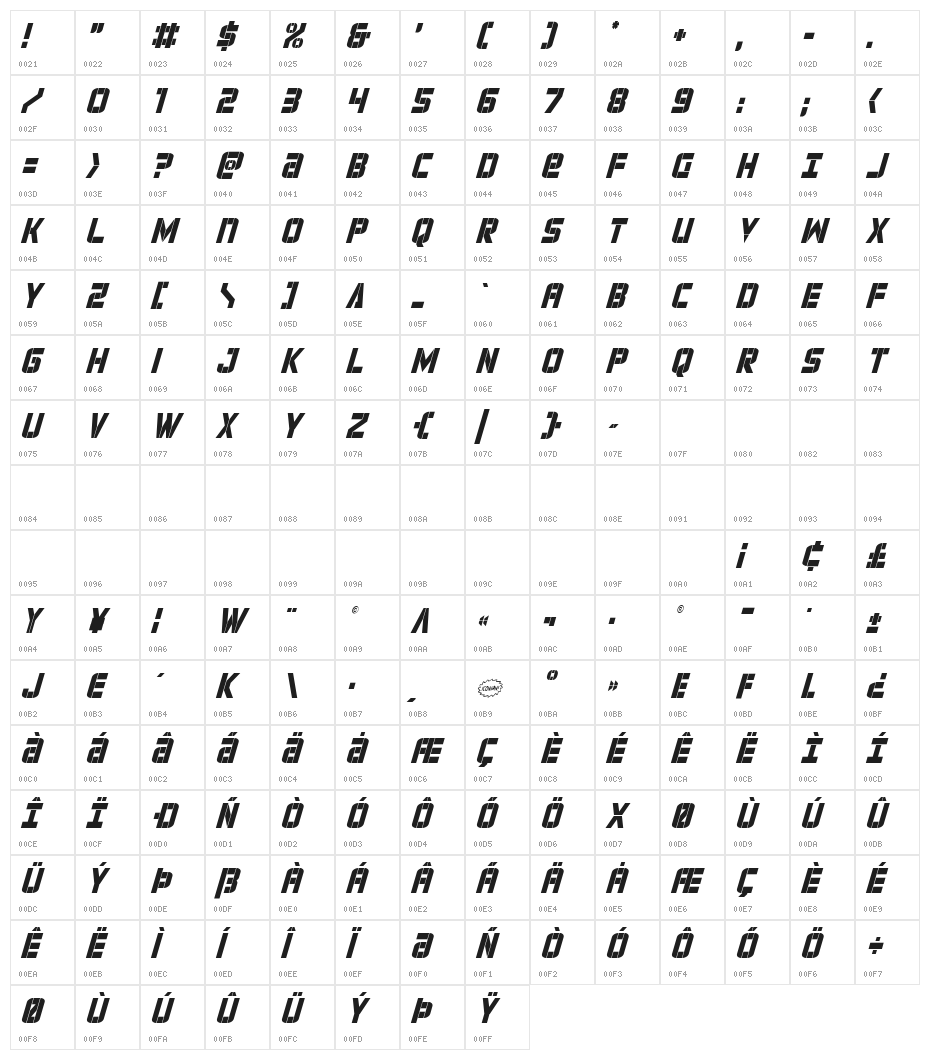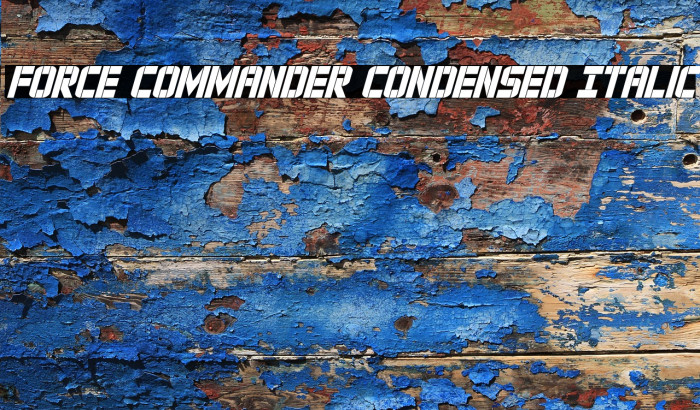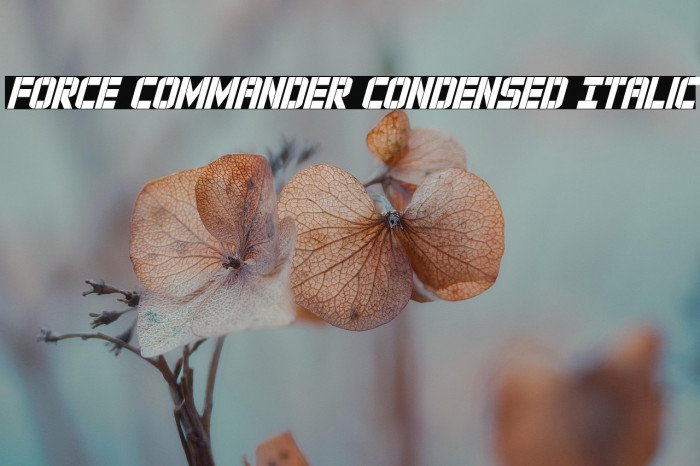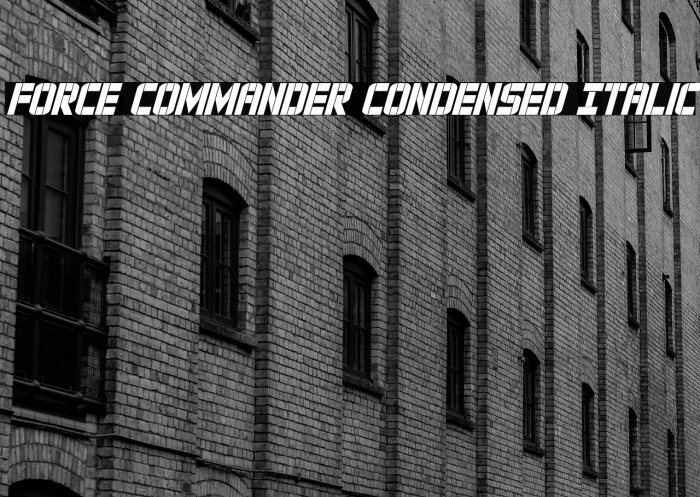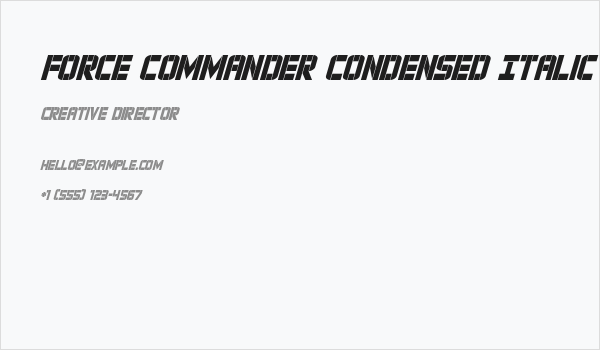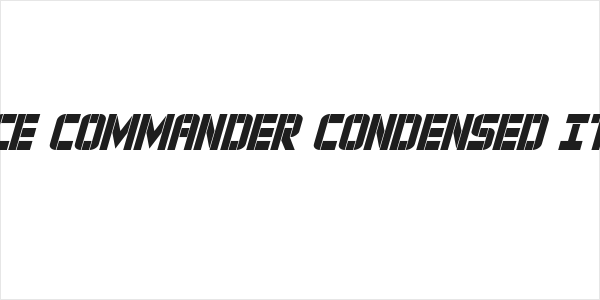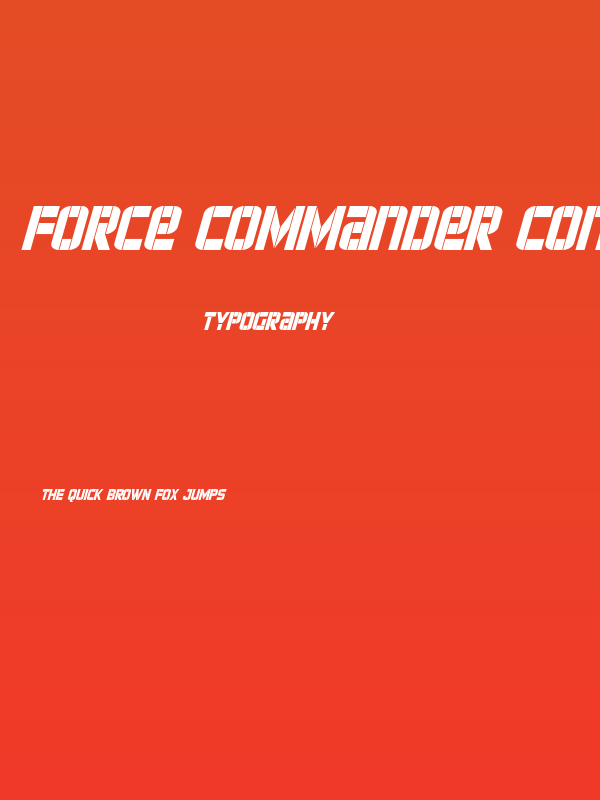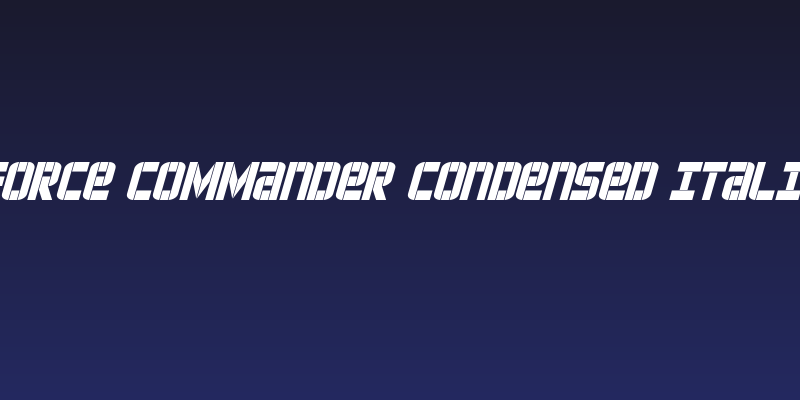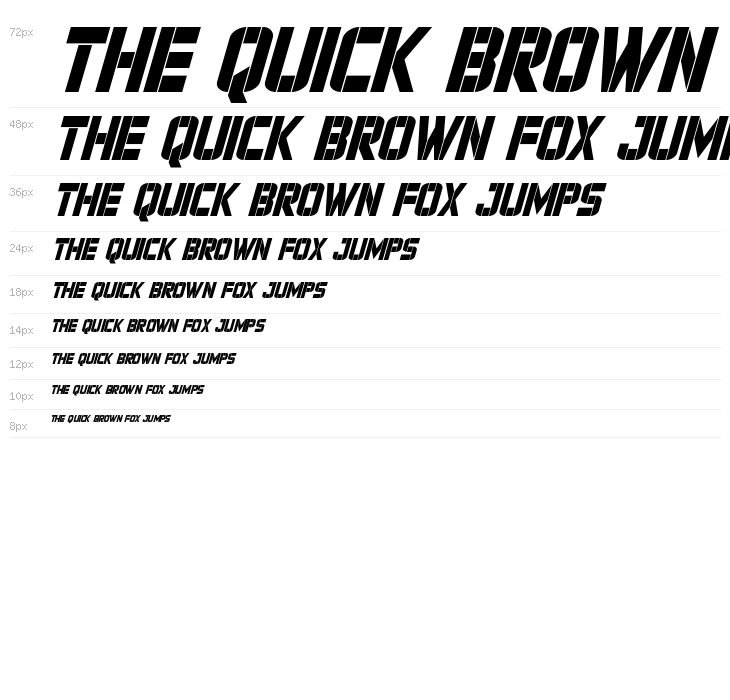
Force Commander Condensed Italic Font
Force Commander Condensed Italic Description
This font features a bold, condensed style with a distinct italic slant, creating a dynamic and energetic appearance. The characters are constructed with thick, angular strokes that give a sense of movement and urgency. The design incorporates sharp edges and geometric shapes, contributing to a futuristic and industrial aesthetic. The uppercase and lowercase letters maintain a consistent style, while the numerals and special characters are designed to match the bold and angular theme. The overall look is striking and modern, making it suitable for attention-grabbing designs.